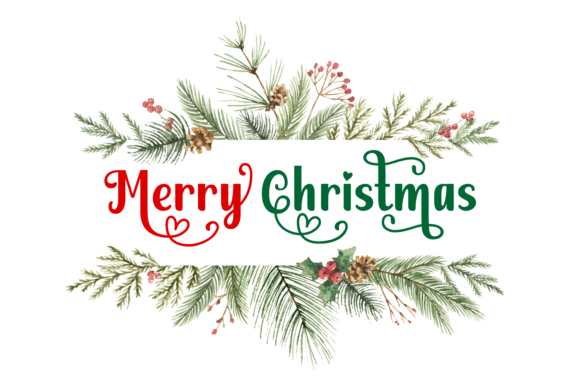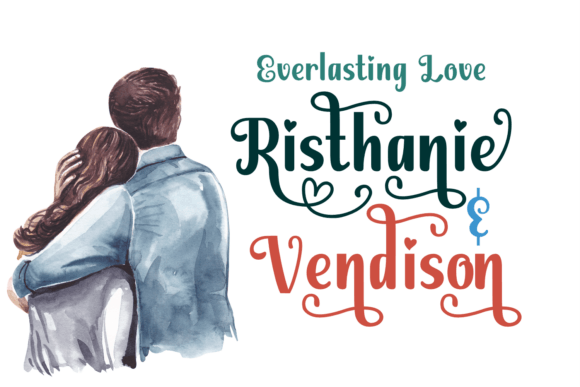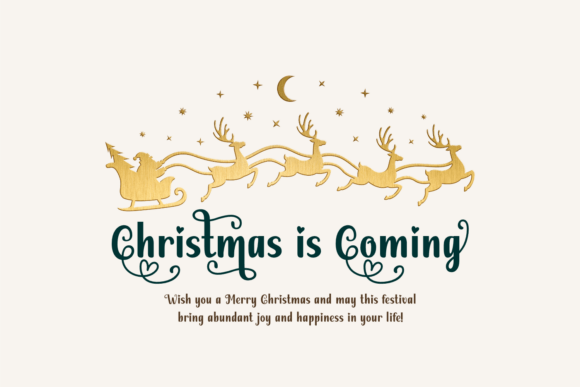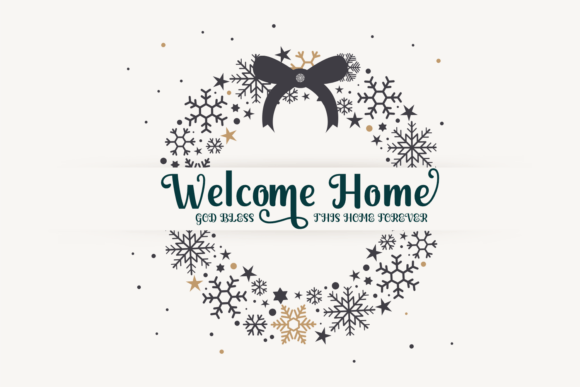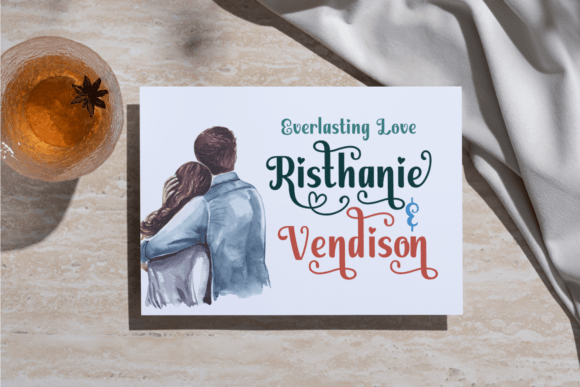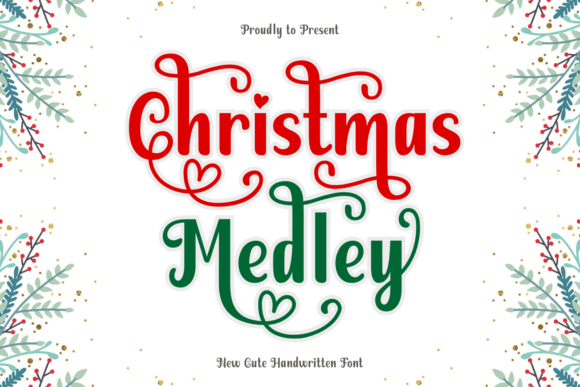
Infuse the Magic of Christmas with the Enchanting Christmas Medley Font
The holiday season is upon us, and with it comes the joy of creating special designs that capture the essence of Christmas. Whether you’re a designer, crafter, or simply someone who loves to get creative, you know how important it is to choose the right font to convey the festive spirit. That’s where the Christmas Medley Font comes in – a beautiful, handwritten font that’s sure to add a touch of yuletide cheer to your end-of-year designs.
A Festive Font that Embodies the Christmas Spirit
Christmas Medley is more than just a font – it’s an experience. Its impeccable handwritten style embodies the festive Christmas spirit, evoking feelings of warmth, joy, and togetherness. The font’s organic feel and flowing letters perfectly capture the cozy ambiance that defines the end-of-year festivities, making it the perfect choice for personal projects with your loved ones.
Bring Your Cherished Family Moments to Life in Design
With Christmas Medley, you can bring your cherished family moments to life in design. Imagine creating beautiful holiday cards, gift tags, or social media posts that showcase your favorite memories. The font’s elegant, cursive script adds a touch of sophistication and whimsy, making it perfect for:
• Holiday cards and invitations
• Gift tags and wrapping paper designs
• Social media posts and stories
• Personalized ornaments and decorations
• Blog posts and website headers
Why Choose Christmas Medley Font?
So, what sets Christmas Medley apart from other fonts? Here are just a few reasons why designers and crafters love this enchanting font:
• Unique and eye-catching: Christmas Medley is a one-of-a-kind font that’s sure to grab attention and evoke the festive spirit.
• Easy to read: Despite its elegant, cursive script, Christmas Medley is surprisingly easy to read, making it perfect for both digital and print designs.
• Versatile: Use Christmas Medley for a wide range of design projects, from holiday cards to social media posts.
• Personal touch: The font’s handwritten style adds a personal touch to your designs, making them feel more special and meaningful.
Tips for Using Christmas Medley Font in Your Designs
To get the most out of Christmas Medley, here are a few design tips to keep in mind:
• Pair with complementary fonts: Combine Christmas Medley with other fonts to create a unique and visually appealing design.
• Experiment with colors: Try pairing Christmas Medley with a range of festive colors, from traditional red and green to metallic gold and silver.
• Add illustrations: Consider adding illustrations or graphics to your design to enhance the festive theme.
• Keep it simple: Don’t be afraid to keep your design simple and elegant, letting the beauty of Christmas Medley shine through.
Font Name Christmas Medley Font
Author Yan (7NTypes)
Infuse the magic of the holiday season into your end-of-year designs with the enchanting Christmas Medley Font. With its impeccable handwritten style, organic feel, and flowing letters, this stunning font is sure to capture the essence of Christmas and bring your cherished family moments to life in design. So why wait? Choose Christmas Medley today and add a touch of yuletide cheer to your designs!